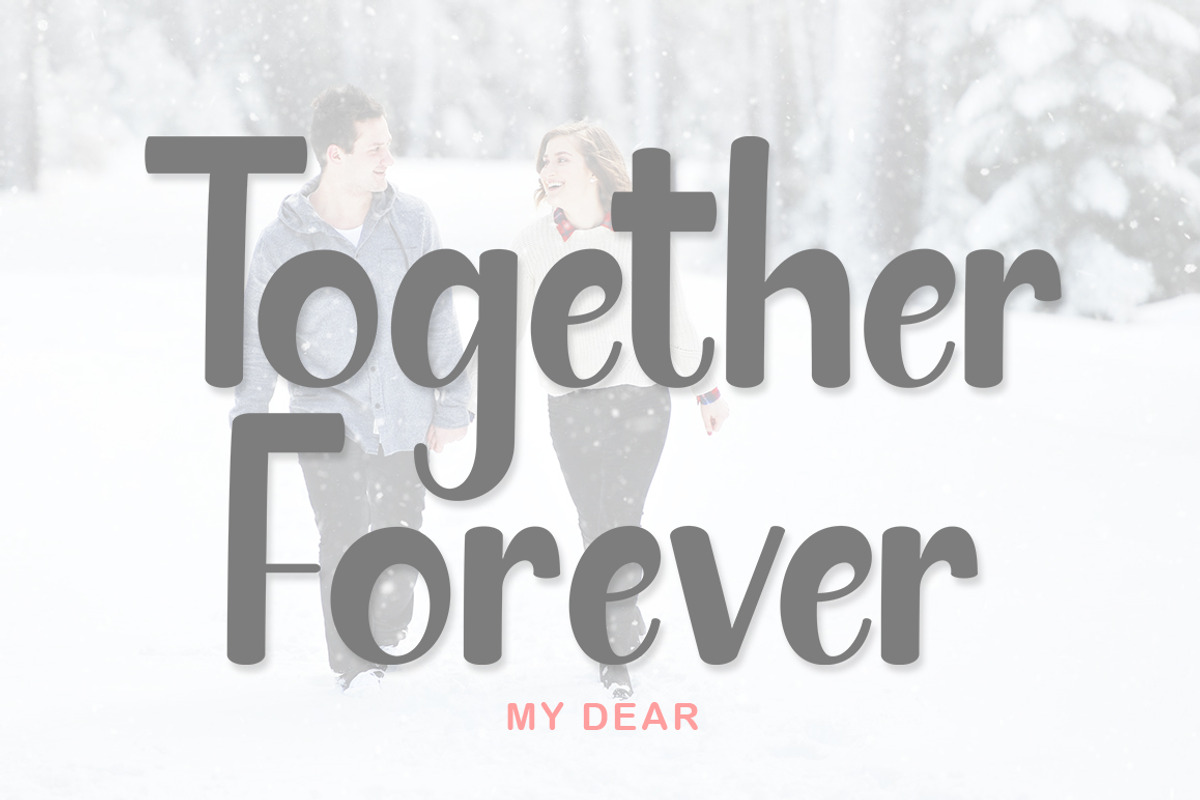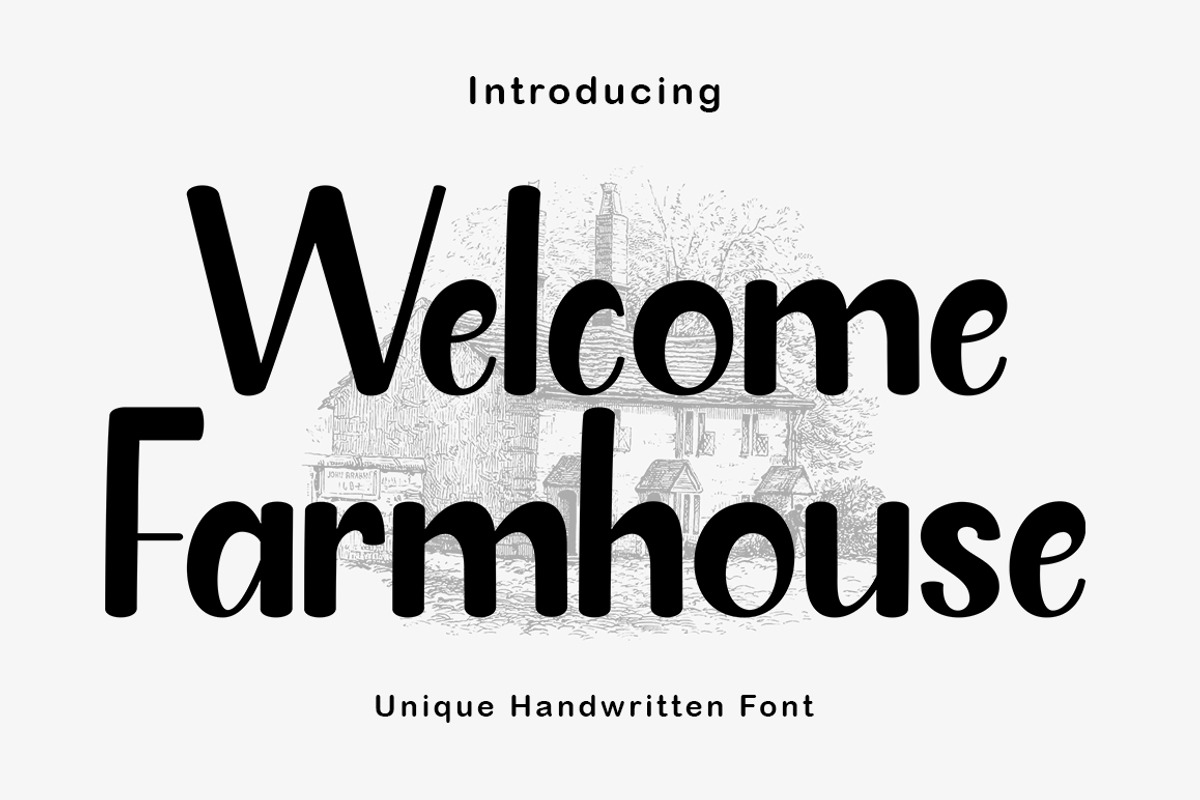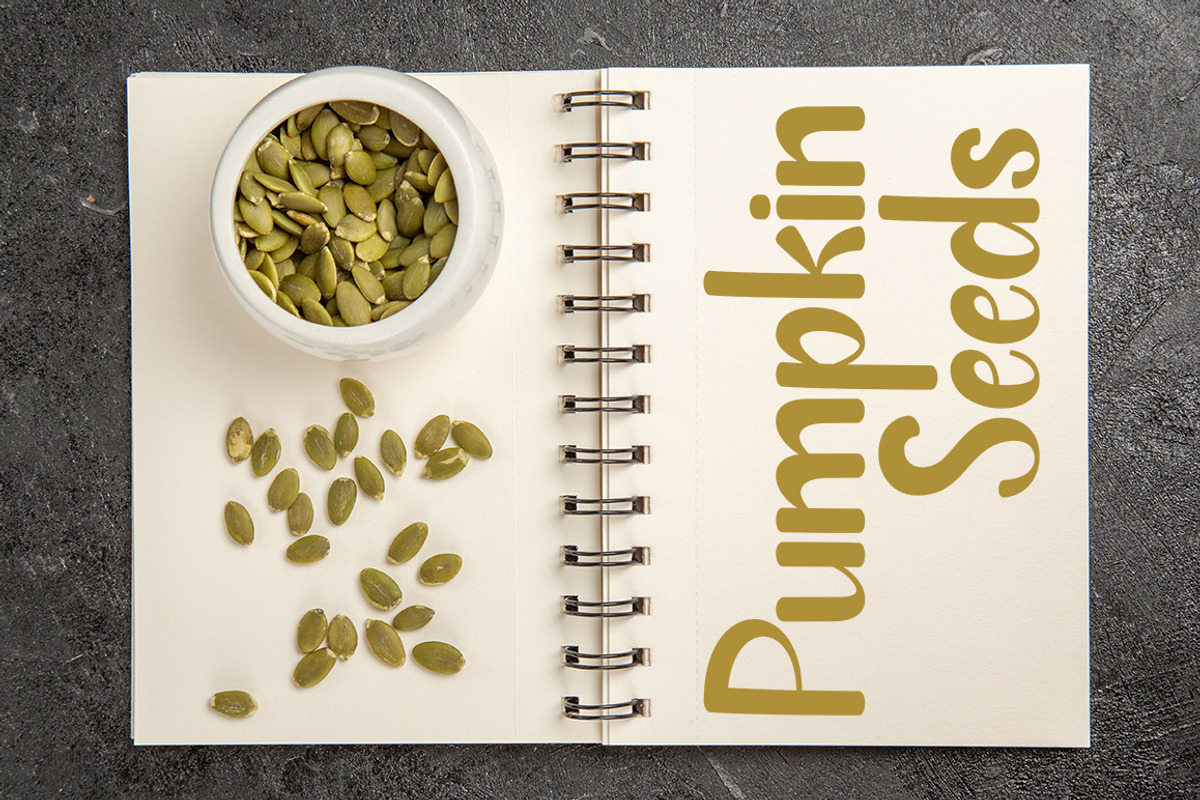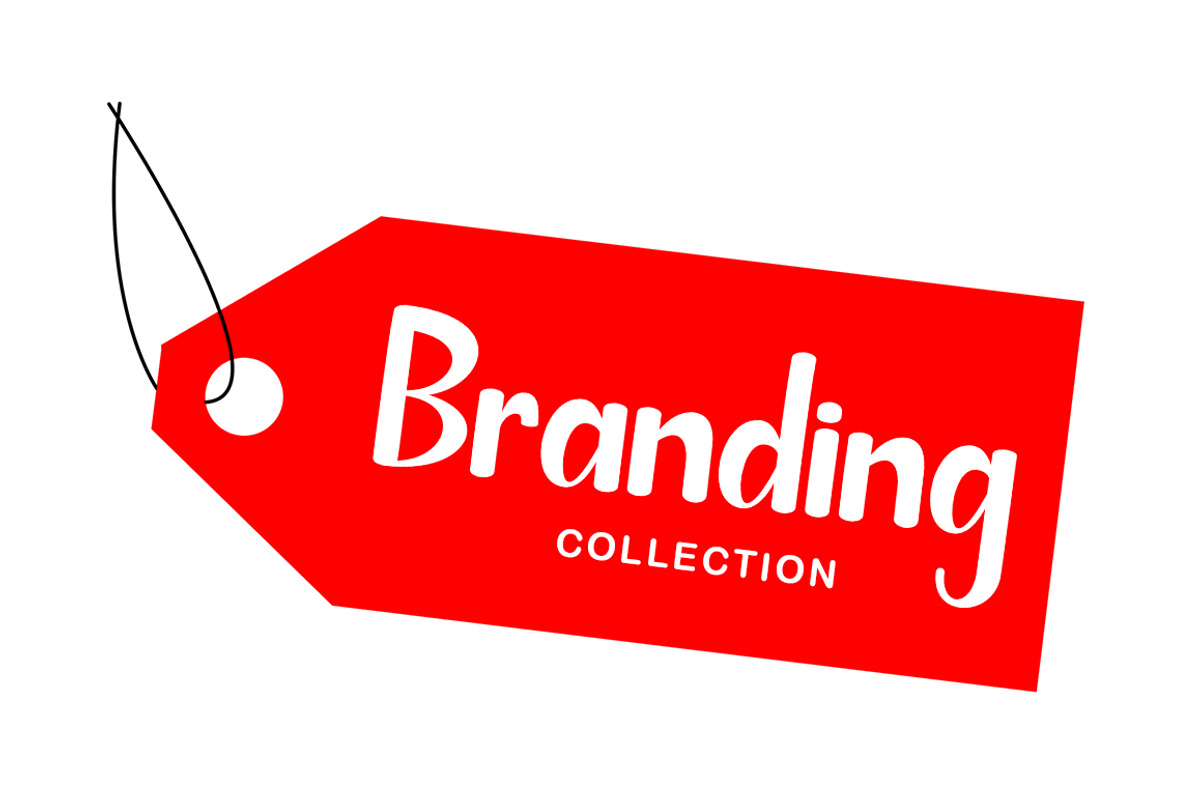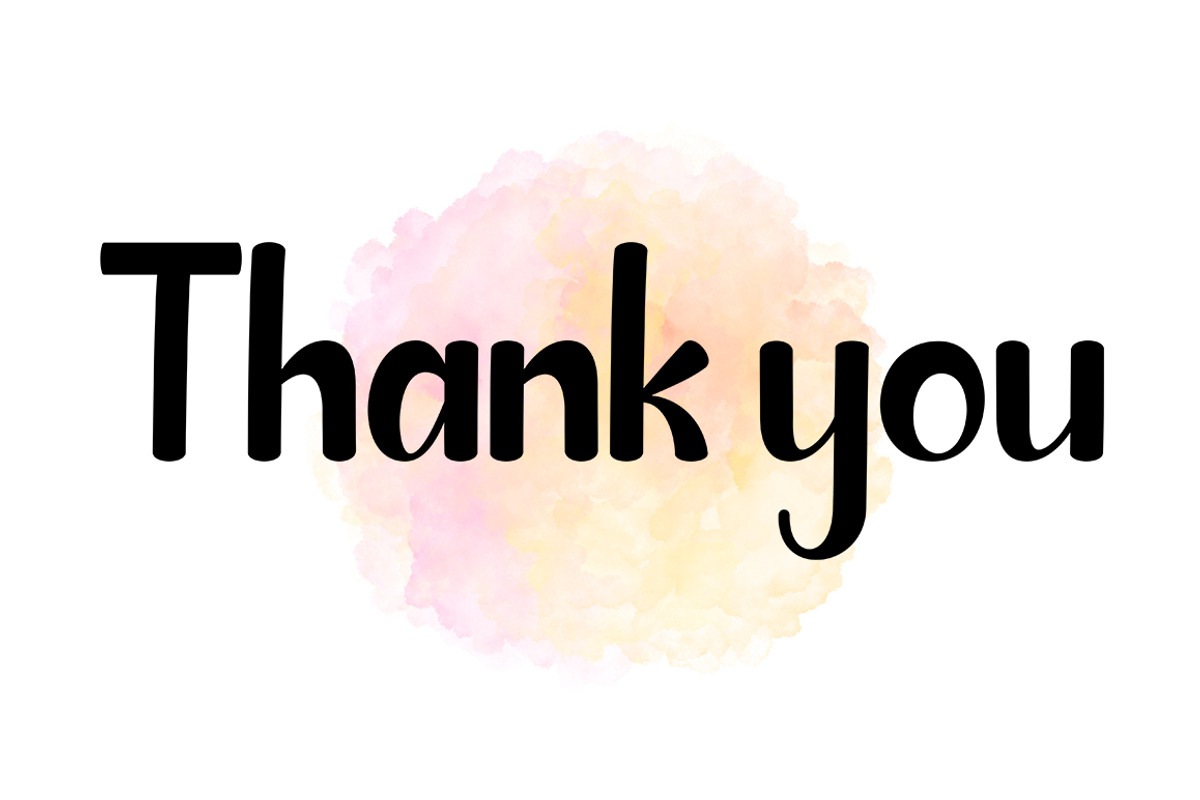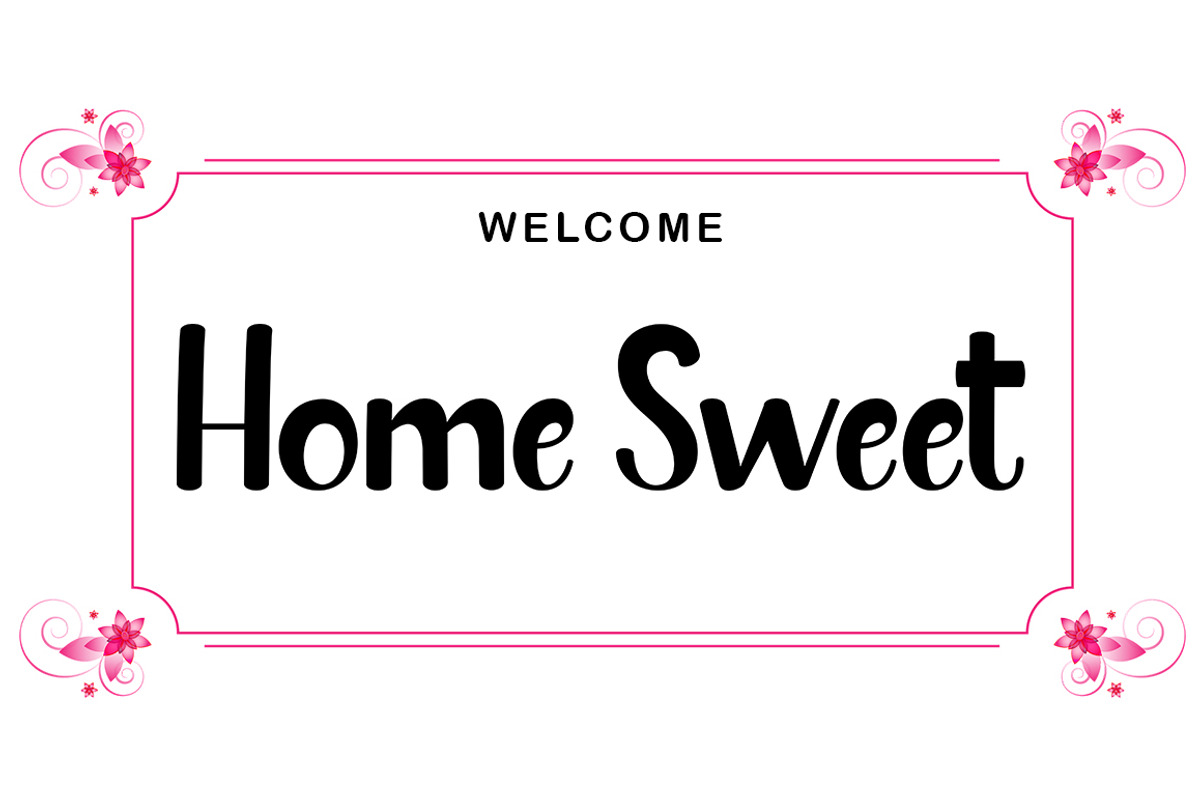
Welcome Farmhouse
Welcome Farmhouse Font For Crafters is a sweet and feminine handwritten font that is perfect for so many design projects! This handwritten font is extra smooth for Cricut and Silhouette crafters, making it a great font for crafters creating projects with vinyl!